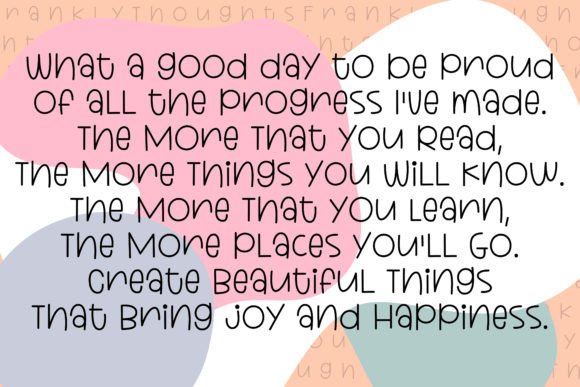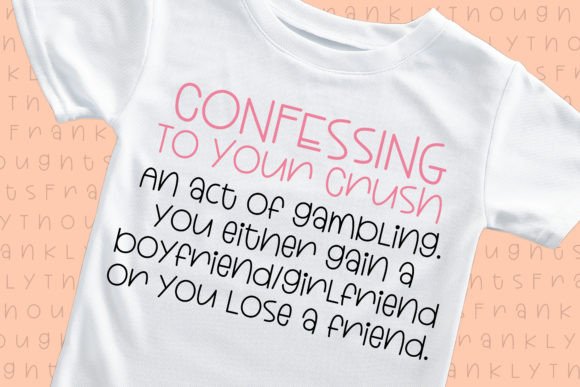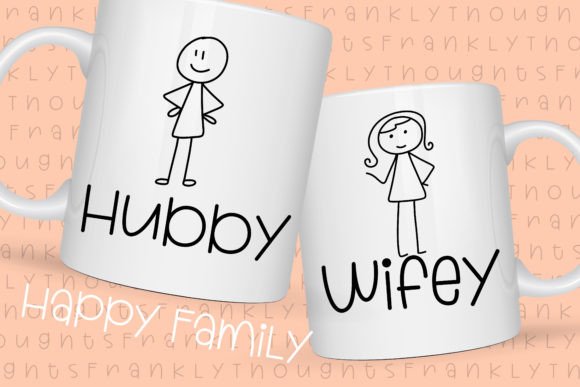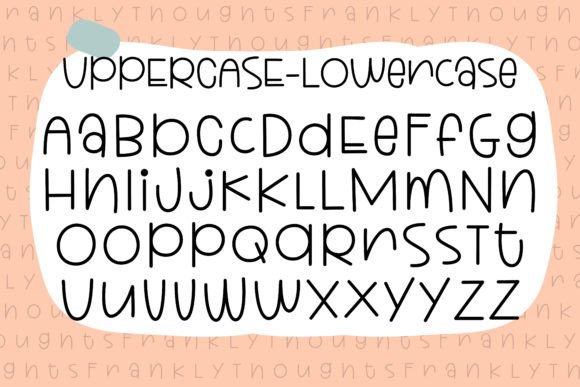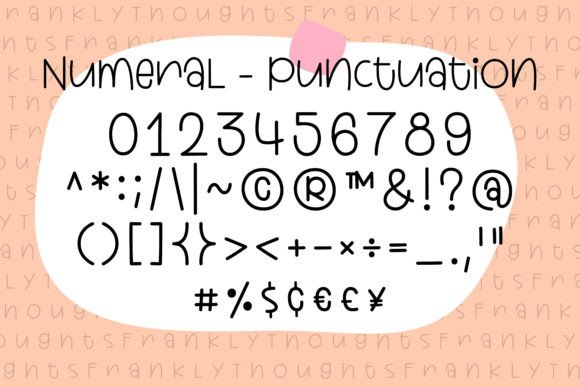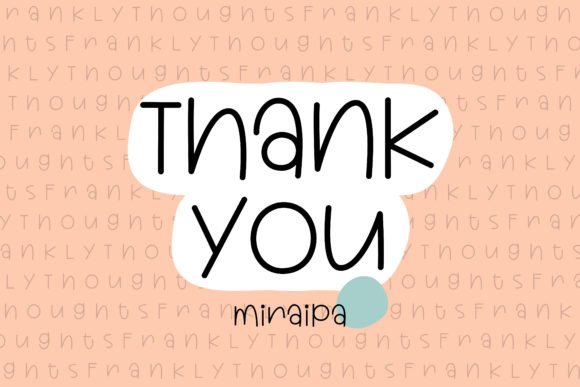
Do you remember the feeling of excitement when you’re brainstorming ideas for a new project? The rush of creativity, the spark of inspiration, and the eagerness to bring your vision to life? That’s exactly what the Frankly Thoughts Font is designed to evoke.
This charming sans serif font is perfect for adding a friendly touch to your DIY projects. With its cute and whimsical style, it’s ideal for a wide range of applications, from Easter and back to school projects to wedding invitations and party decorations. Whether you’re a seasoned designer or a DIY enthusiast, the Frankly Thoughts Font is a valuable addition to your font library, guaranteed to bring your creative projects to life.
Frankly Thoughts Font Key Features
- Font Family: Frankly Thoughts Font is a unique, handwritten font with a modern twist, perfect for adding a personal touch to designs.
- Size: The font family includes a range of weights from Extra Light to Extra Bold, allowing designers to choose the perfect weight to suit their design needs.
- Resolution: Designed for high-resolution displays, Frankly Thoughts Font looks great at resolutions up to 300 DPI, making it ideal for printing and digital applications.
- Unique Characteristics: The font features a mix of cursive and handwritten elements, giving it a friendly and approachable feel, while also being versatile enough to work in a variety of contexts.
- Character Count: The font family includes a wide range of characters, including Latin, Greek, and Cyrillic scripts, as well as punctuation and symbols, making it a comprehensive solution for designers.
Frankly Thoughts Font Review
I recently had the chance to dive into the “Frankly Thoughts Font” and I must say it’s a mixed bag. Here’s my honest take:
- Unique style: The font has a distinct, quirky feel that sets it apart from more generic sans-serif fonts.
- Good legibility: Despite its unconventional design, the font remains easy to read, especially at larger sizes.
- Creative possibilities: The font’s bold, expressive lines lend themselves well to creative projects, like art, graphics, or even digital design.
- Limited usability: While the font is great for creative projects, it may not be the best choice for body text or everyday use due to its irregular shape.
- Overpowering: The font’s bold lines can be overwhelming if used excessively, making it difficult to read or comprehend the text.
- No variations: The font lacks variations, such as bold, italic, or condensed styles, which can limit its versatility.
Overall impression
The “Frankly Thoughts Font” is a great choice for designers looking for a bold, creative statement. However, it’s essential to use it judiciously, balancing its unique style with more traditional fonts to maintain readability. While it may not be suitable for everyday use, it’s a great addition to any designer’s toolkit for those special projects that demand a bit of flair.
The “Frankly Thoughts Font” is ideal for creating eye-catching headlines, titles, and quotes. Use it to add a touch of elegance and sophistication to your designs. Some common use cases include:
- Creating social media posts and graphics
- Designing presentations and reports
- Creating quotes and inspirational graphics